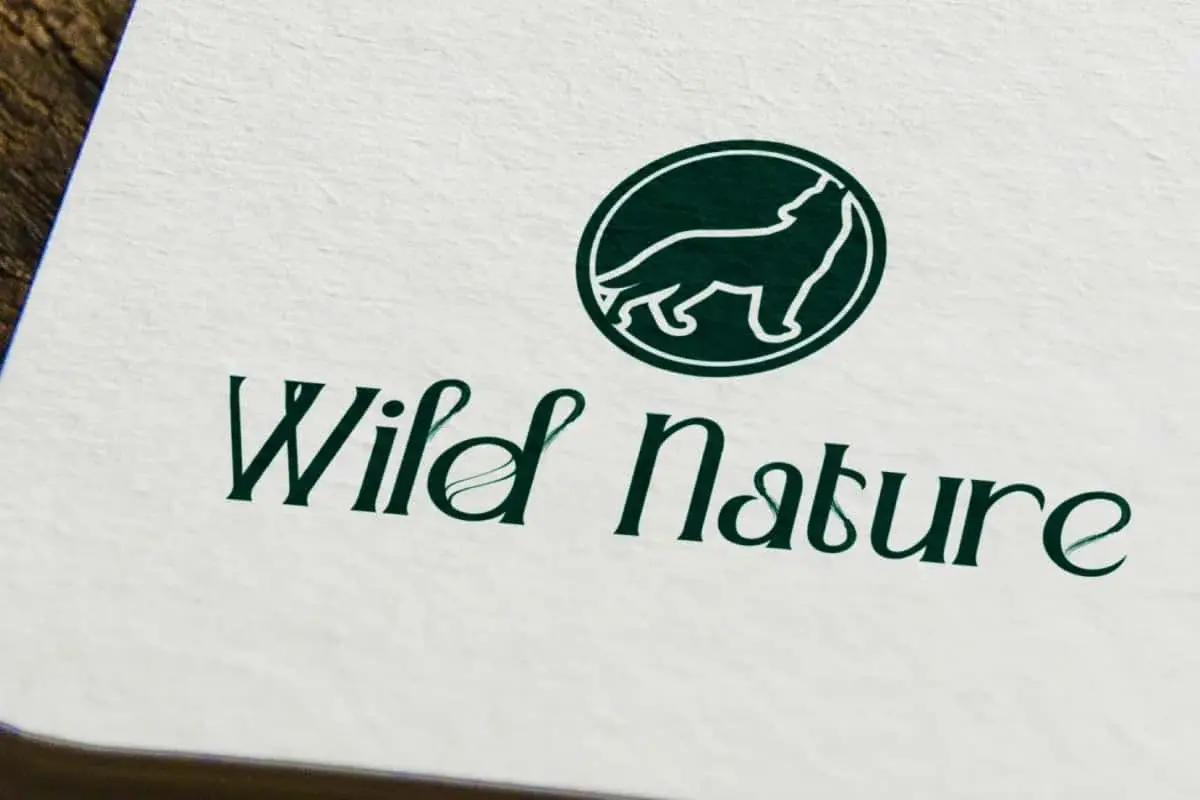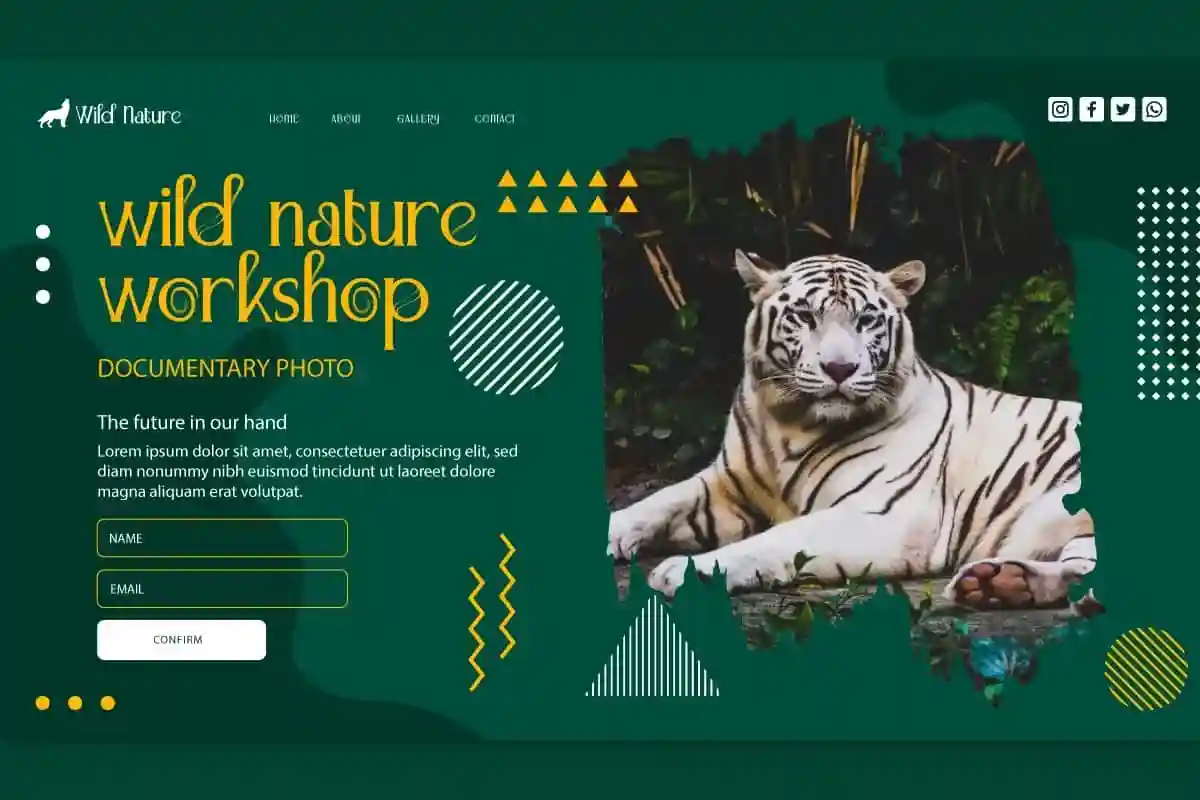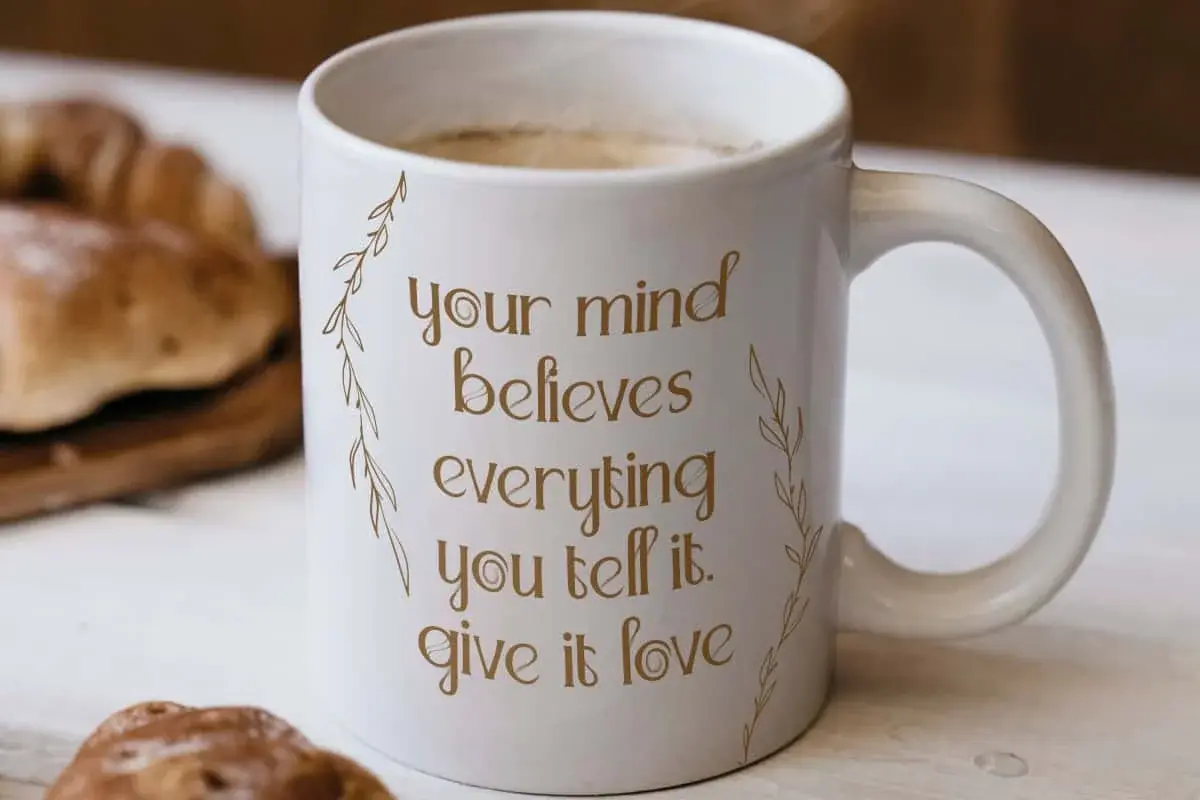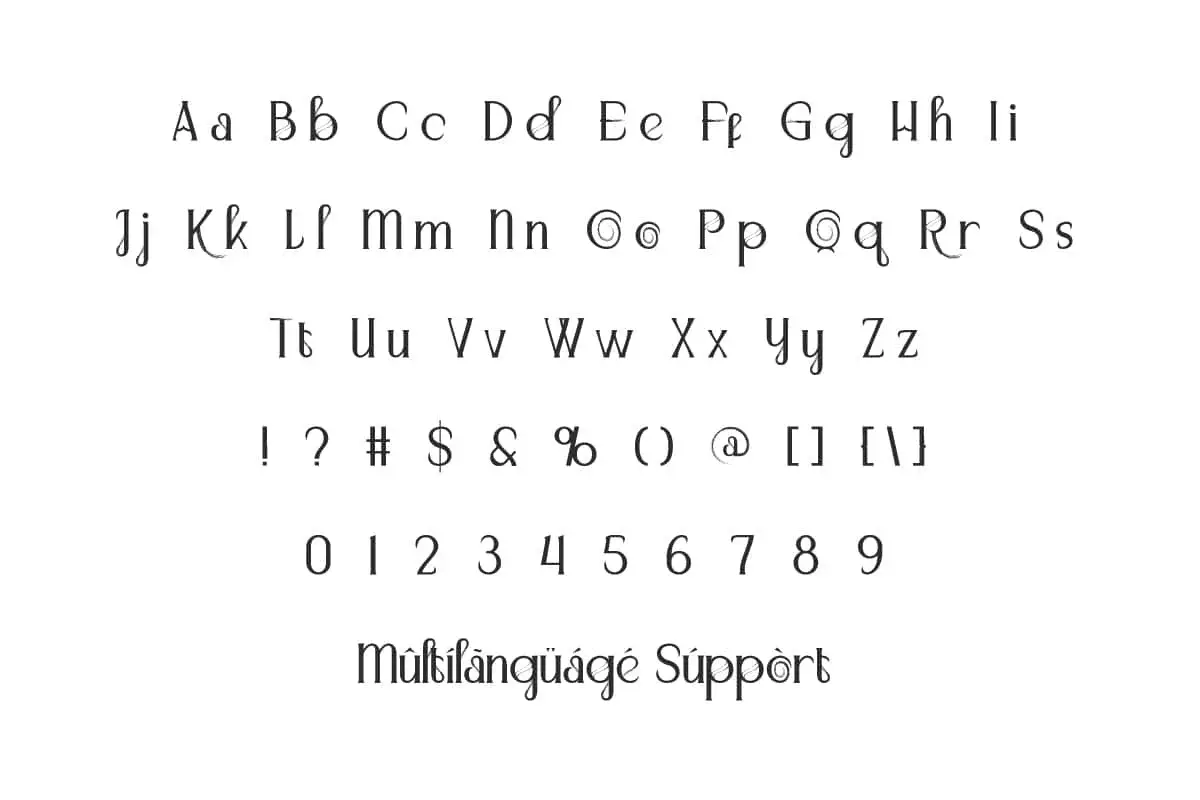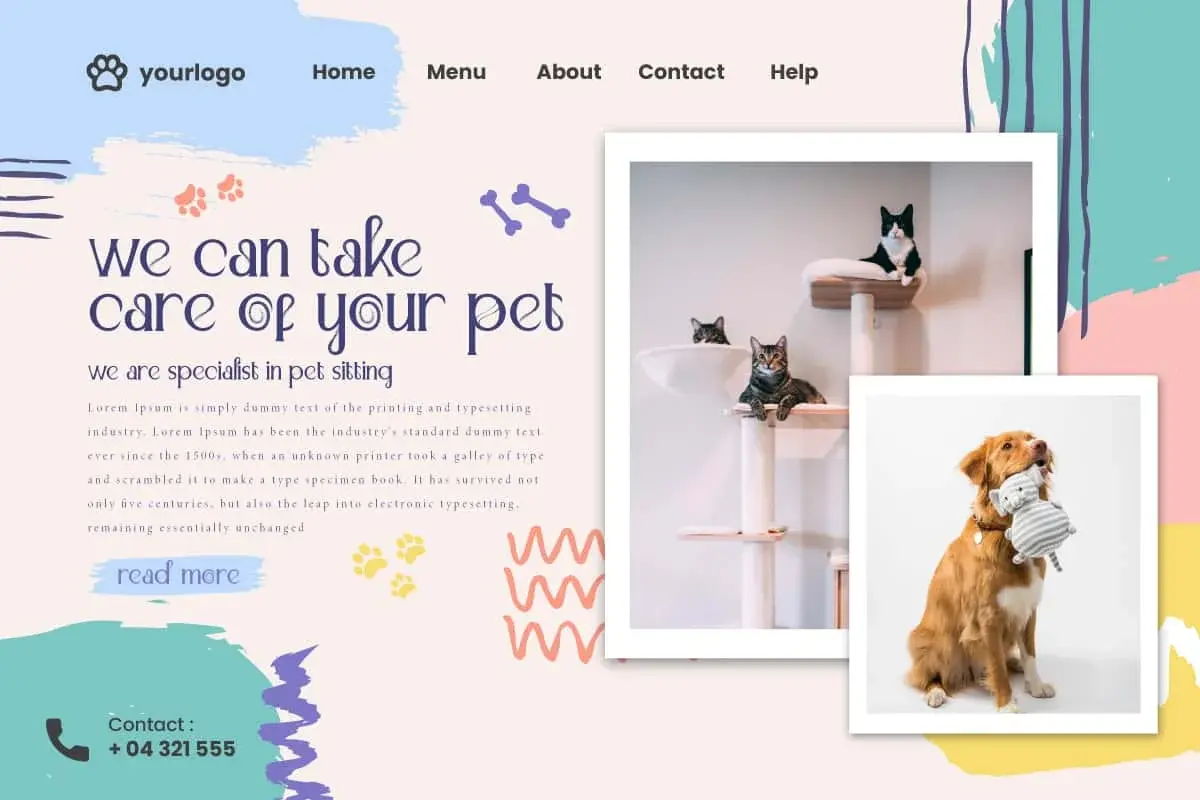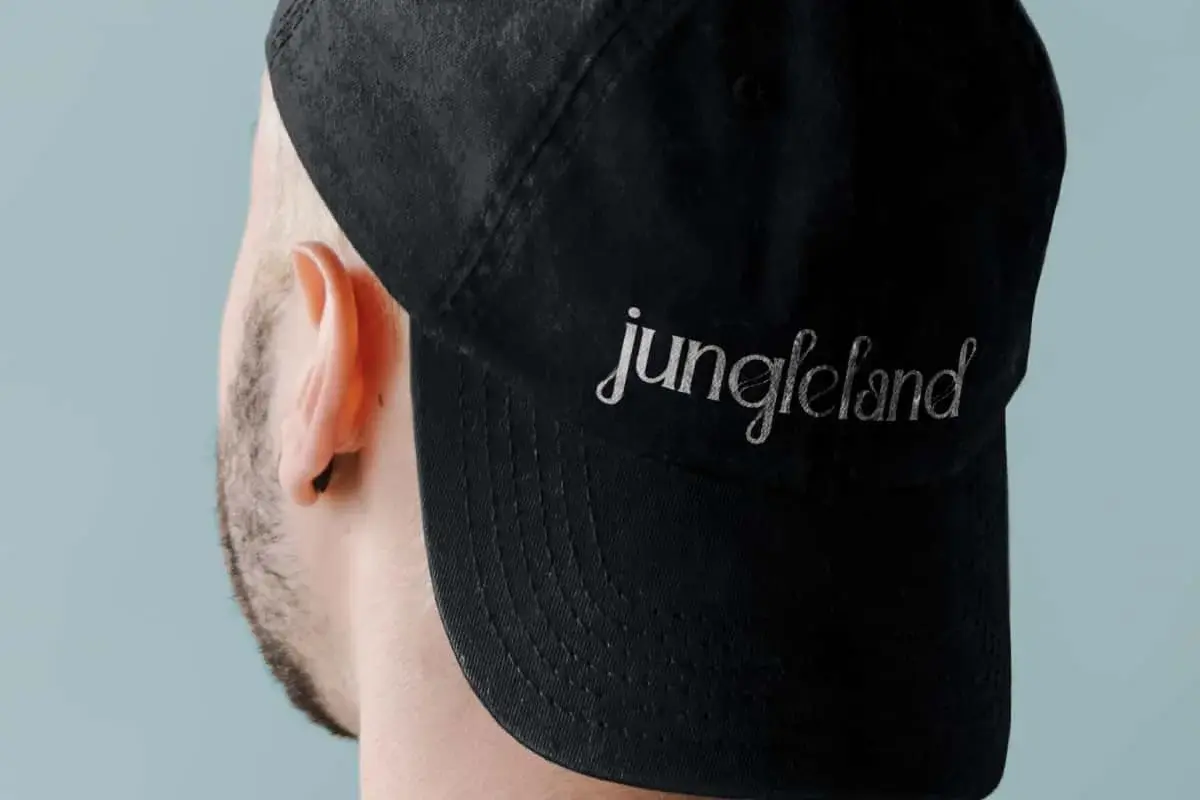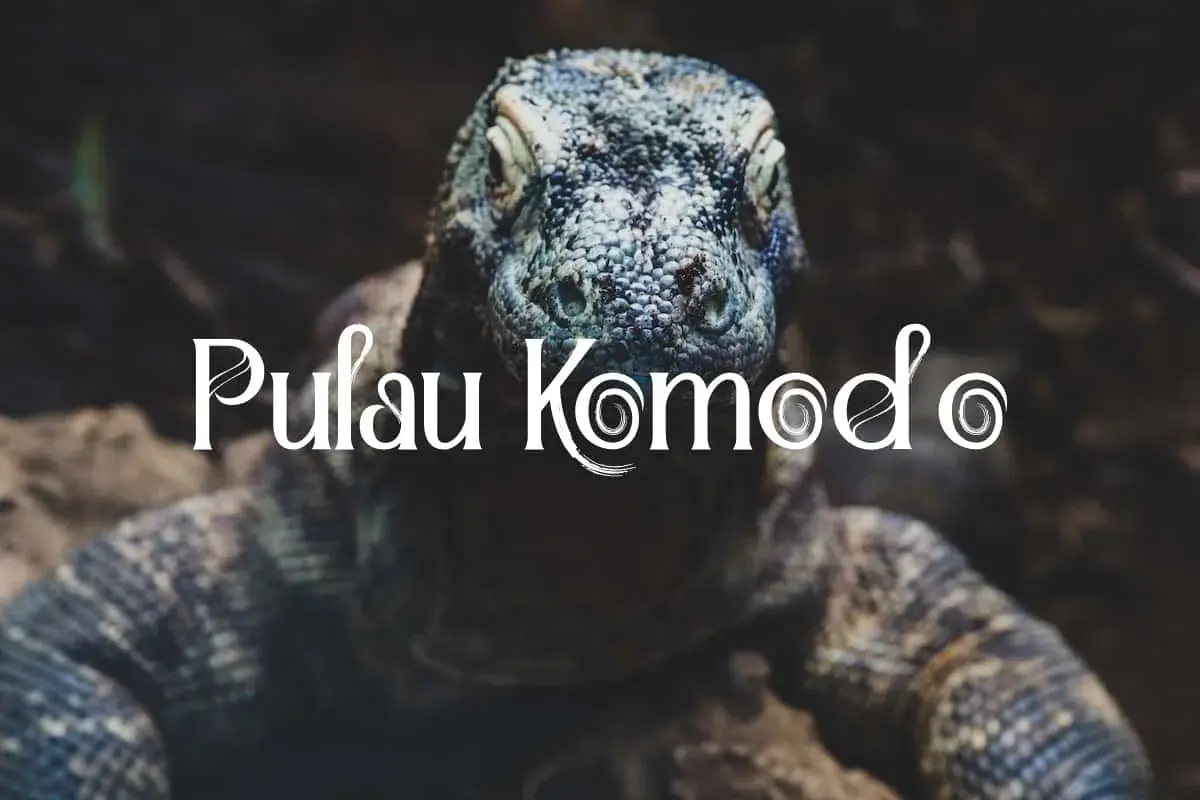
Pulau Komodo Font is a unique display font that will help you stand out in any design project. It looks great on headers and printed materials.
Pulau Komodo Font is a unique decorative and stylish display font with animal, tradition and wildlife theme, you’ll find this versatile really lends itself to a variety of great looks. You can use it this font in your design, such as apps, banners, branding, brochure, headers, labels, logos, posters, print materials, stationery, stickers, website, or whatever you can imagine!
Pulau Komodo Font has a unique touch with its serif initial shape and the addition of a curved brush at the end. This font contains a complete set of basic characters Uppercase and Lowercase, Numbers, Symbols and Punctuation. It provides a beautiful contrast that will make any typeface stand out. This font looks great for animal care, apparel, cafeteria, fashion, graphic design, restaurant, wildlife park, and much more.